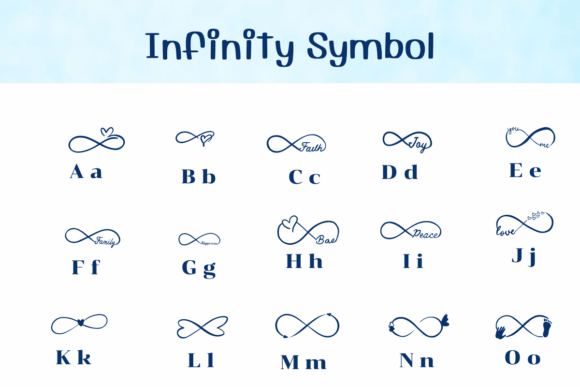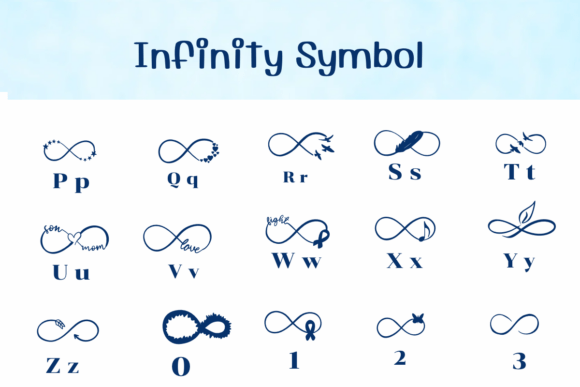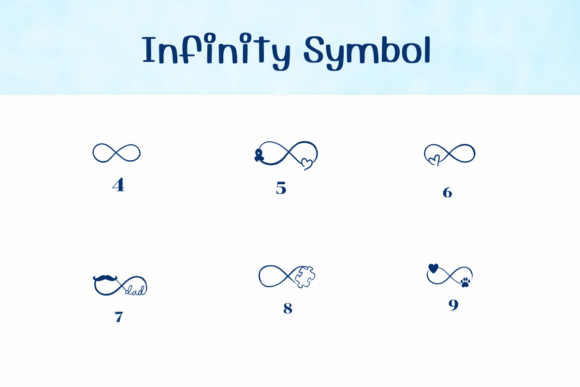
Infinity Symbol Font: Elegant Dingbats for Sentimental Crafting
About the Infinity Symbol Font
Discover the charm of Infinity Symbol Font. This font is a perfect blend of modern aesthetics and classic appeal. Infinity Symbol
is a meaningful dingbats font featuring a collection of elegant infinity loop designs—each incorporating heartfelt words and symbols like hearts, wings, stars, and awareness ribbons. Perfect for sentimental crafting, tattoos, vinyl cutting, memorial projects, or personalized gifts, this font turns the timeless infinity shape into a touching visual message of love, hope, and connection.
Its elegant, yet heartfelt style makes it ideal for projects requiring a touch of sentimentality, such as wedding invitations, memorial cards, or branding for businesses focused on love, hope, or spirituality. It excels in applications like logos, short headlines, or social media graphics where individual symbols can be showcased effectively. Avoid using it for body text or lengthy paragraphs; its decorative nature compromises readability in continuous blocks.
Infinity Symbol Font pairs well with clean sans-serif fonts like Helvetica or Open Sans for a modern contrast, or with a delicate script font like Pacifico for a more romantic feel. A classic serif like Garamond could also provide a sophisticated counterpoint, creating a balance between the font’s decorative elements and a more traditional typographic approach.
The overall personality is best described as sentimental and elegant, conveying a message of enduring love and connection. Its strength lies in its symbolic power and visual appeal rather than its versatility for extensive textual content.
Infinity Symbol Font Usage Examples
Infinity Symbol Font Example